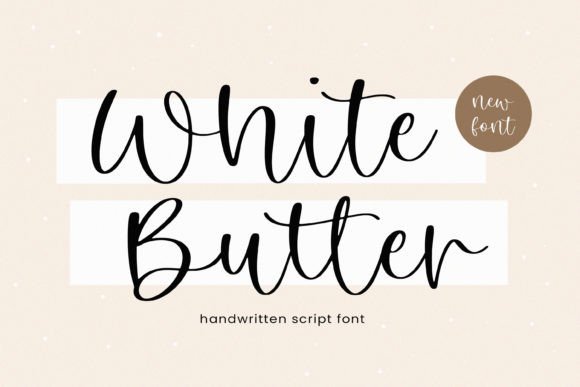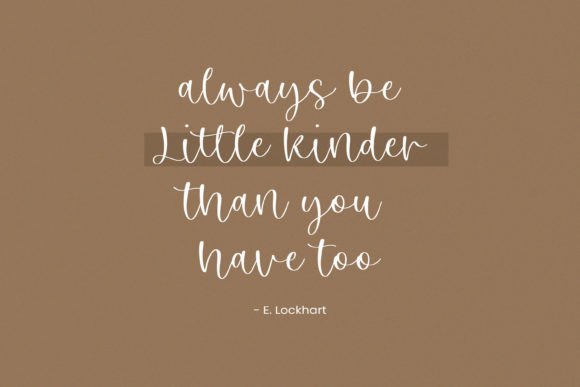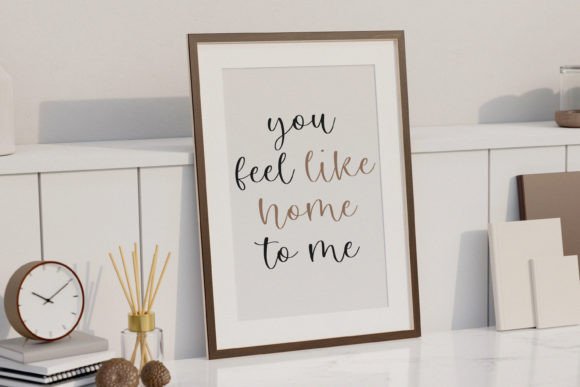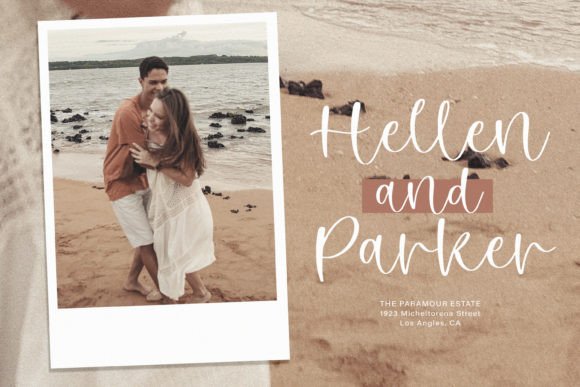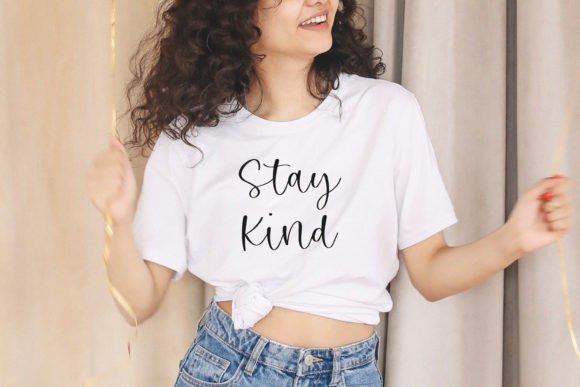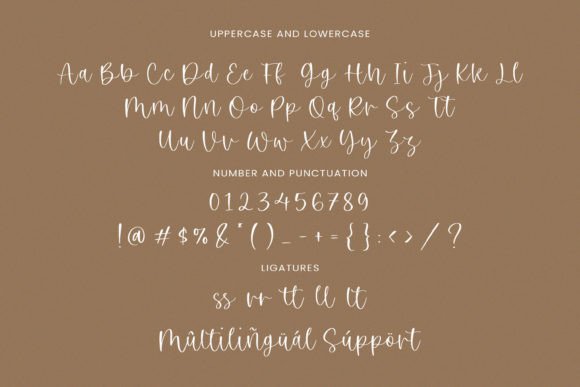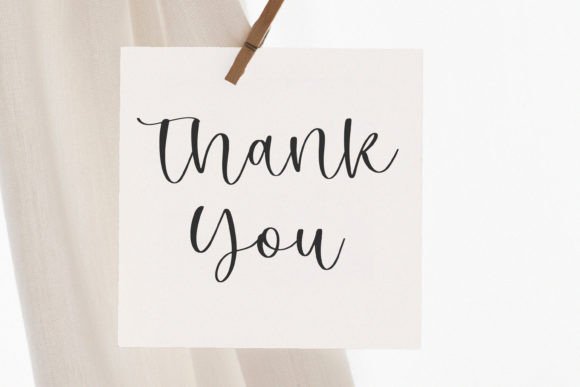
White Butter Font
About White Butter Font
White Butter is an exquisite handwritten font that brings together the beauty of classic calligraphy and the clean style of modern design. Every stroke feels intentional, elegant, and full of character. This makes White Butter a must-have font for designers who want their projects to look polished, professional, and unique.
With its flowing curves and delicate details, White Butter adds a luxurious touch to any text. From wedding invitations to logos and social media graphics, this font is perfect whenever you need a handwritten script that feels refined and contemporary.
Elegant and Modern Style
White Butter combines traditional calligraphic elegance with a modern twist. Its graceful curves and balanced letters create a harmonious look that feels timeless but fresh. This versatile style fits beautifully in both formal and casual projects.
Use White Butter to make your titles stand out, highlight quotes, or add a signature touch to your branding. No matter where you use it, it will bring a sense of sophistication and warmth to your work.
Perfect for Any Creative Project
White Butter works wonderfully in a wide range of design applications, including:
• Wedding Invitations: Create romantic invitations, save-the-date cards, and seating charts.
• Logos and Branding: Add a personal and elegant feel to your brand identity.
• Social Media Graphics: Make Instagram posts, Facebook covers, and Pinterest pins pop with beautiful lettering.
• Greeting Cards: Design heartfelt messages for birthdays, holidays, or special occasions.
• Product Packaging: Give your labels, tags, and boxes a handcrafted look.
• Photography Watermarks: Use White Butter to sign your photos with a classy signature.
• Stationery and Business Cards: Stand out with unique, professional typography.
Its versatility means you can rely on it again and again for any creative need.
Design Tips for White Butter
Make the most of White Butter with these quick design tips:
• Pair It Thoughtfully: Match it with a clean sans-serif font for a modern balance.
• Use Ample Space: Let the letters breathe for maximum readability.
• Go Minimal: Simple backgrounds let the details stand out.
• Try Metallic Colors: Gold or silver text brings out the luxurious feel.
• Mix Sizes: Use large headings with smaller accents to create hierarchy.
Why Designers Love White Butter
Designers love White Butter for its ability to elevate any project with ease. It feels upscale yet approachable, stylish yet friendly. This unique balance makes it a favorite for professional and personal use alike.
Whether you’re creating a brand, designing wedding stationery, or simply adding elegance to everyday graphics, White Butter is a font that delivers beautiful results every time.